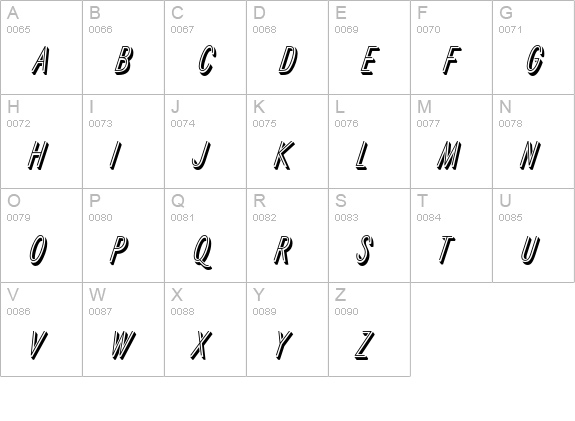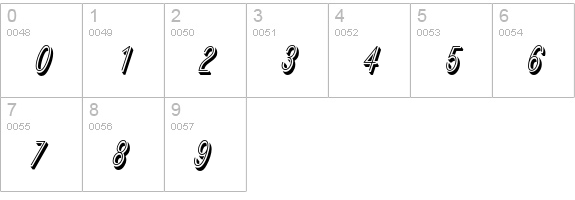
Xanten Font Details
Xanten font is a beautifully crafted typeface that exudes elegance and sophistication. With its sleek lines and graceful curves, Xanten is perfect for adding a touch of refinement to any project. This versatile font is ideal for use in a variety of design applications, from branding to editorial design. What sets Xanten font apart is its unique combination of classic design elements with a modern twist. The font strikes the perfect balance between tradition and innovation, making it the perfect choice for those seeking a timeless yet contemporary look. One of the best things about Xanten font is that it is completely free to download. You can get your hands on this stunning typeface at FontsMarket.com, where you'll find a wide range of other high-quality fonts to choose from. Don't miss out on the opportunity to enhance your designs with the beauty and elegance of Xanten font – download it today and see the difference it can make!